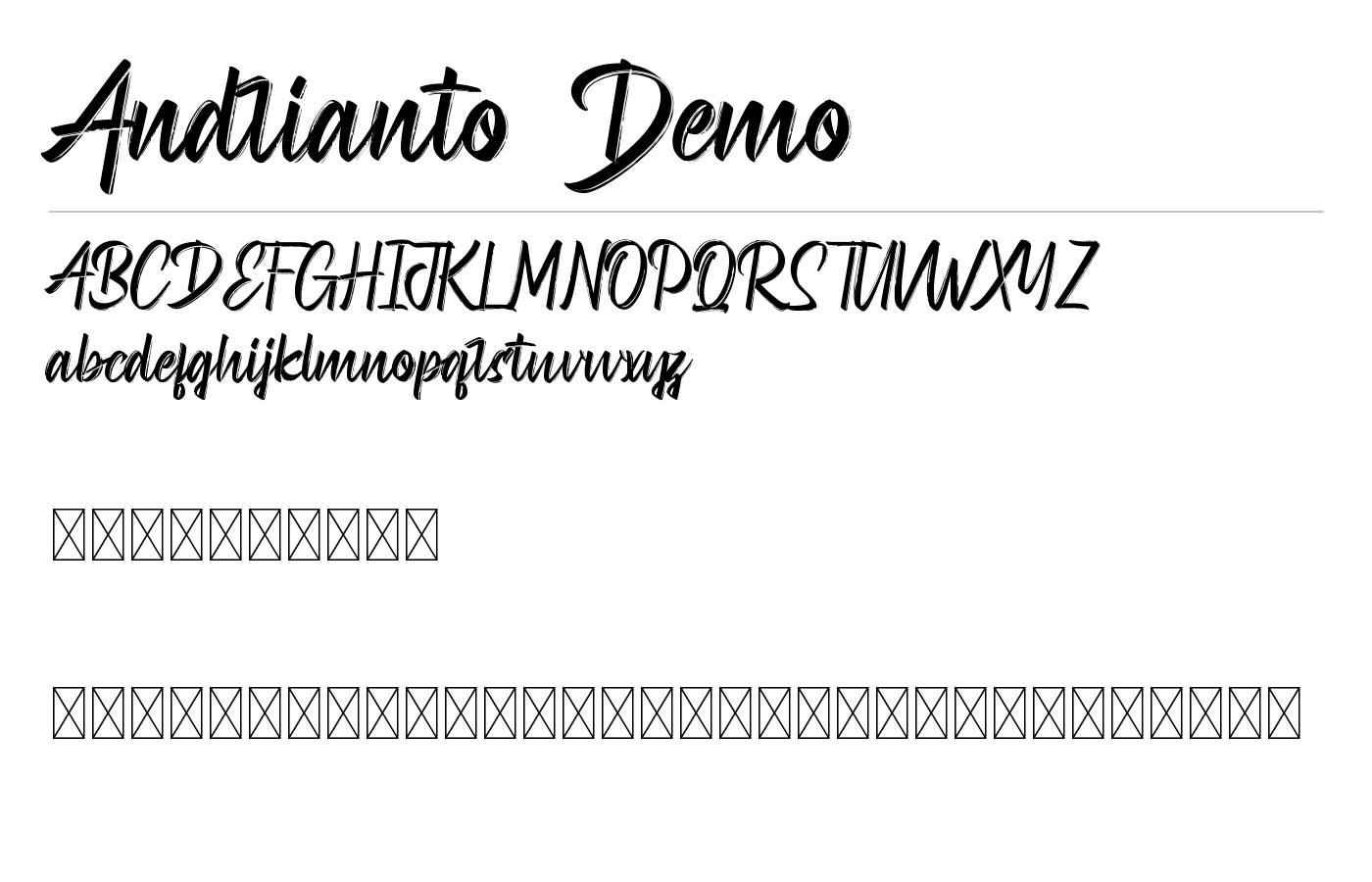
Andrianto Demo is a lively brush script font that combines a casual, hand-drawn feel with bold, flowing strokes. Its high contrast and slightly slanted letterforms give it an energetic yet elegant appearance, making it perfect for creative branding, invitations, and eye-catching headlines. This font works well in projects aiming for a personal, artistic touch with a modern flair.
Andrianto Demo Font
About Andrianto Demo Font
| Font family | Andrianto Demo Font |